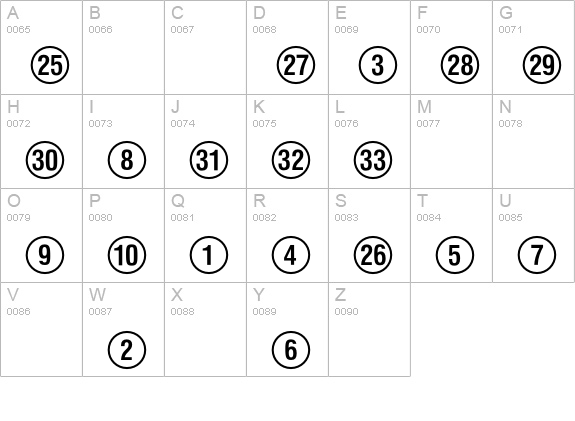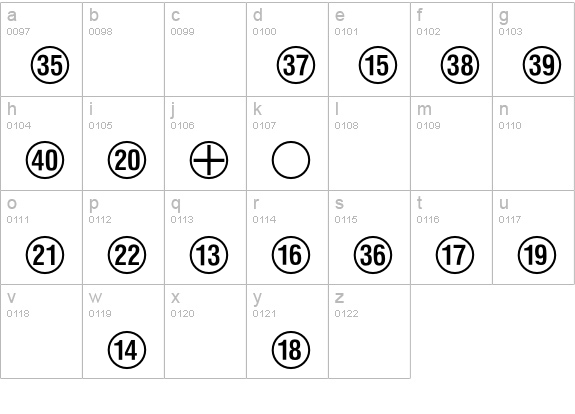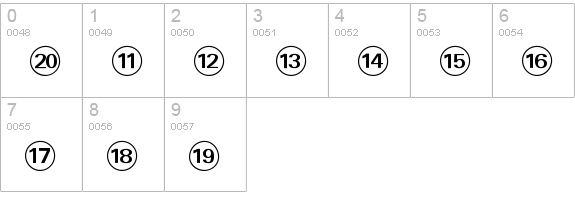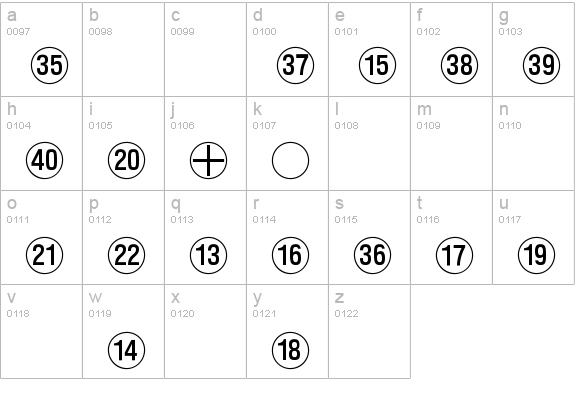
NumericsP01 Font Details
NumericsP01 font is a modern and versatile typeface that exudes a sleek and sophisticated vibe. Its clean lines and sharp angles make it perfect for a wide range of design projects, from digital interfaces to print materials. The font offers a unique blend of elegance and functionality, making it a great choice for both headings and body text. What sets NumericsP01 font apart is that it is available for free download at FontsMarket.com. This means that you can easily access and use this stylish font in your projects without any cost. Whether you are a professional designer looking for a new font to add to your collection or a hobbyist seeking a fresh look for your personal projects, NumericsP01 font is a fantastic option. Don't miss out on this opportunity to enhance your designs with this exceptional typeface.